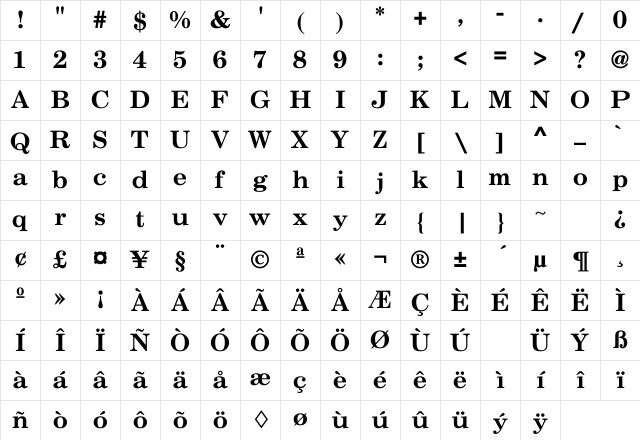
Bucolic Normal Regular
Design Context for Bucolic Normal
Bucolic Normal is a composed and adaptable typeface that performs quietly and consistently across a wide range of design contexts.
Pro Tip: Use Bucolic Normal in both headline and body roles to test its range before committing to a single application.